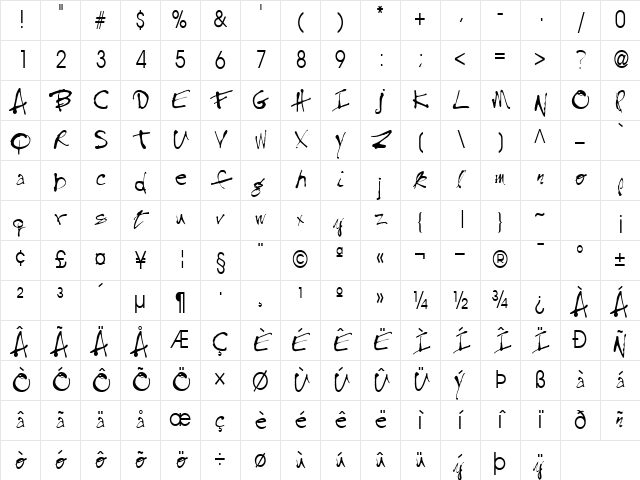
WallWriting34 Regular
Design Context for WallWriting34
WallWriting34 is a composed and adaptable typeface that performs quietly and consistently across a wide range of design contexts.